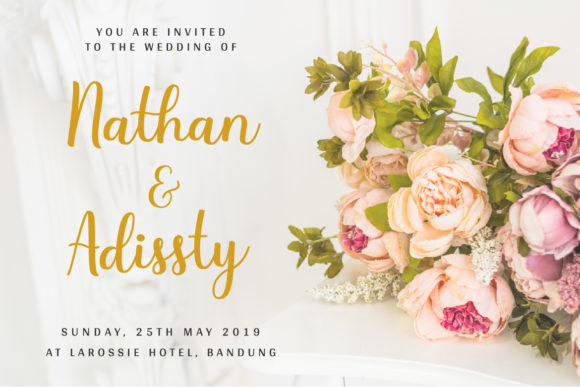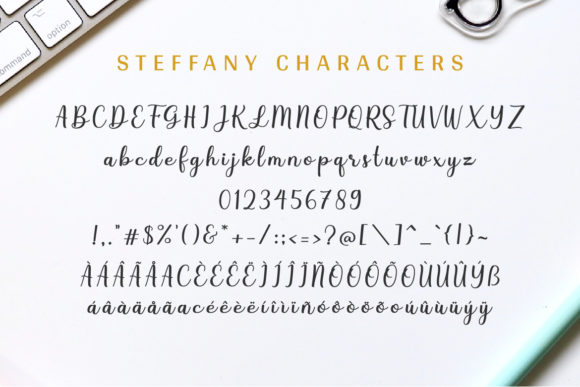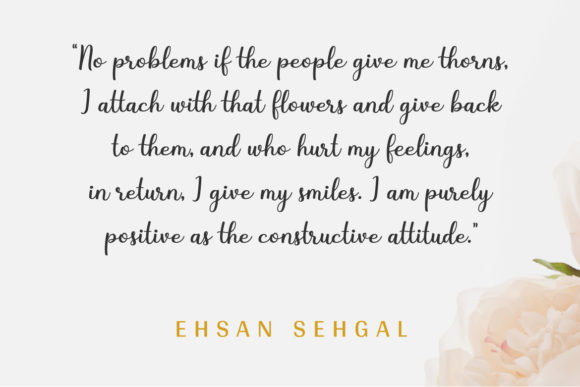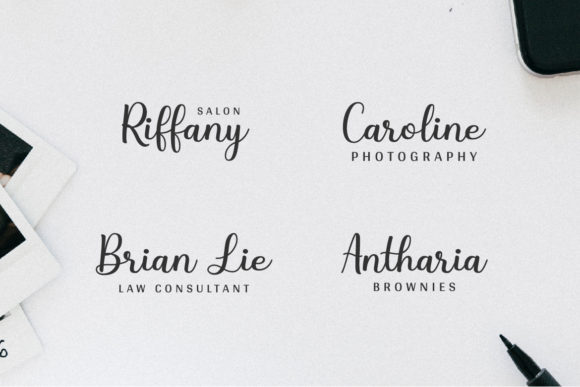
Steffany Font
About Steffany Font
Introducing Steffany, an elegant and flowing handwritten font that exudes sophistication and charm. Steffany seamlessly blends classy calligraphic influences with a contemporary freshness, creating a truly captivating and versatile typeface. Fall in love with this font and witness how it elevates your projects to the highest levels of beauty and authenticity.
Steffany’s graceful and flowing strokes give it an air of refinement and allure. Each letter is crafted with meticulous attention to detail, showcasing the font’s elegance and artistry. Whether you’re designing wedding invitations, thank you cards, quotes, greeting cards, logos, or business cards, Steffany adds a touch of timeless beauty to every design.
The font’s unique blend of classic and modern elements makes it a perfect fit for a wide range of projects. It maintains an air of sophistication while also exuding a fresh and contemporary feel. This duality allows Steffany to shine in various design settings, from luxurious branding to delicate stationery and from social media graphics to editorial layouts.
Imagine using Steffany to create enchanting wedding invitations. Its elegant script becomes a work of art, setting the tone for a celebration filled with romance and style.
For branding and logos that require a touch of refined elegance, Steffany becomes a symbol of sophistication and grace. Its unique style allows you to create a brand identity that resonates with authenticity and charm.
In the realm of social media and quotes, Steffany adds a touch of artistry and allure to your posts and graphics. It captures attention with its beauty, inviting your audience to connect with your message in a heartfelt manner.
Greeting cards and heartfelt messages become poetic expressions of emotion with Steffany. The font’s flowing script conveys sentiments with finesse, making your messages truly captivating.
In conclusion, Steffany is more than just a font; it’s an embodiment of timeless elegance and contemporary allure. With its flowing and graceful style, Steffany becomes an indispensable tool for all your design projects. Embrace the captivating allure of Steffany and watch as your creations come alive with sophistication and charm. Let your imagination flourish in the elegant and flowing embrace of Steffany, the handwritten font that defines creative brilliance and elevates your designs to the highest levels of artistry.